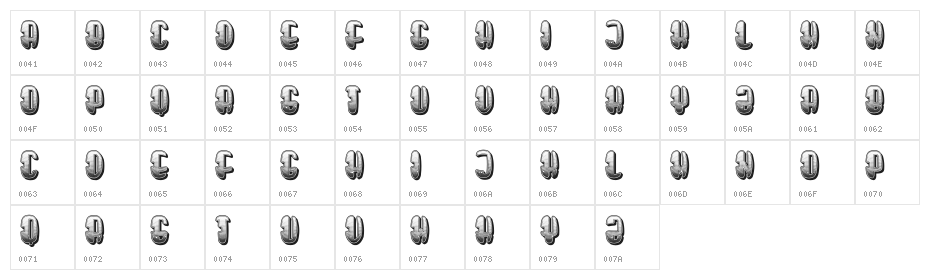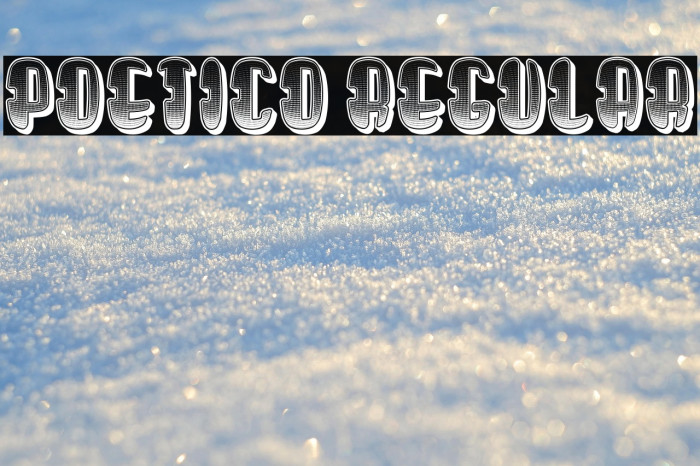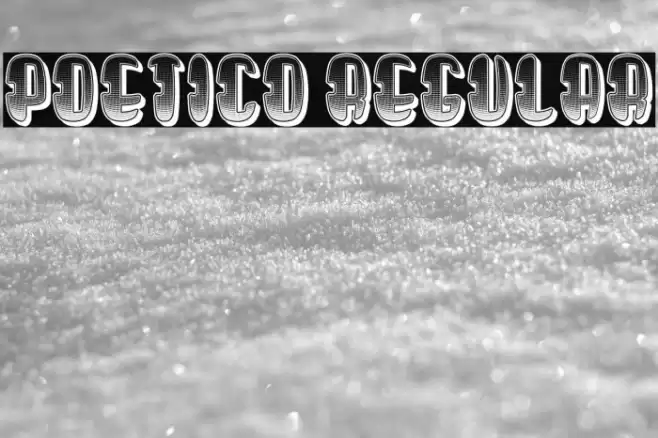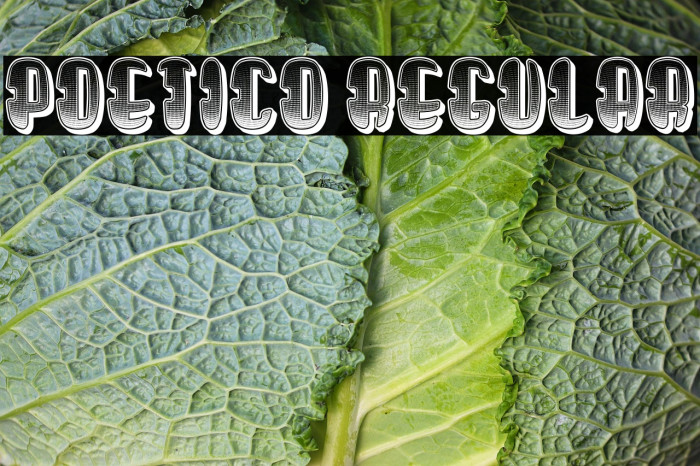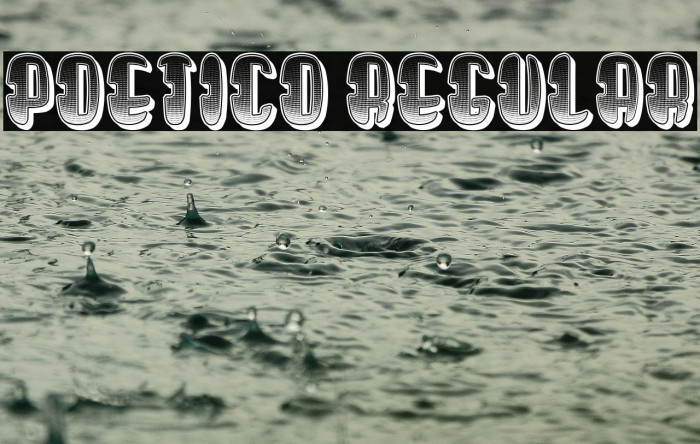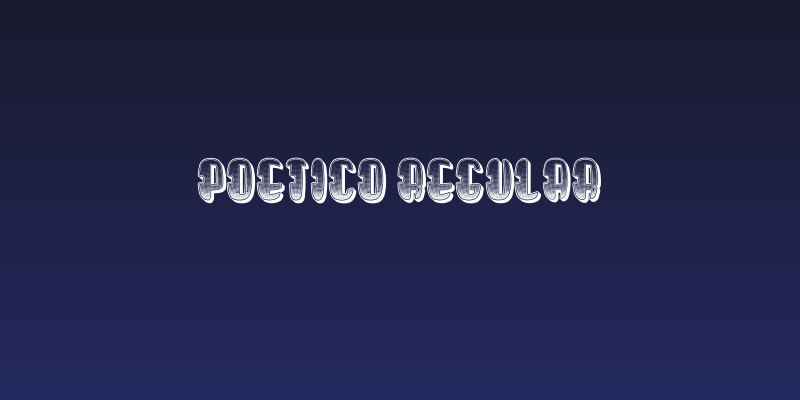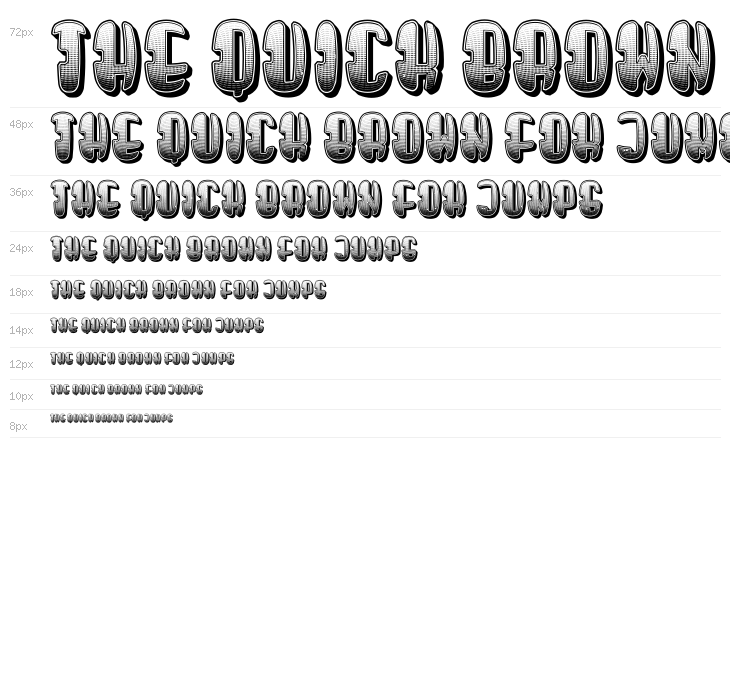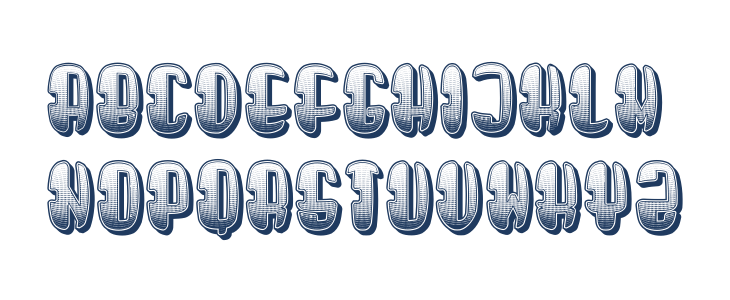
Poetico Regular Font
Poetico Regular Description
This font features a bold, decorative style with a three-dimensional effect created by intricate shading and line work. Each character is uniquely designed with a combination of thick and thin strokes, giving it a dynamic and eye-catching appearance. The letters have a playful, almost cartoonish quality, making them stand out in any design. The font's intricate details and bold presence make it ideal for projects that require a strong visual impact.
| Proposed Projects | Ideal for posters, logos, headlines, and any design requiring a bold, eye-catching font. |